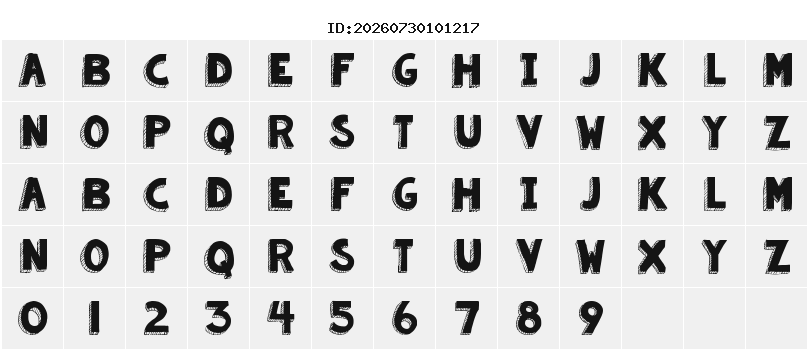
KG Summer Sunshine Blackout Preview
• Font Name: KG Summer Sunshine Blackout
• Full Font Name: KG Summer Sunshine Blackout
• Designer: Kimberly Geswein
About KG Summer Sunshine Blackout.ttf
KG Summer Sunshine Blackout.ttf is a modern, elegant sans-serif font designed for ultimate readability and visual harmony. Perfect for branding, headlines, web design, and print materials.